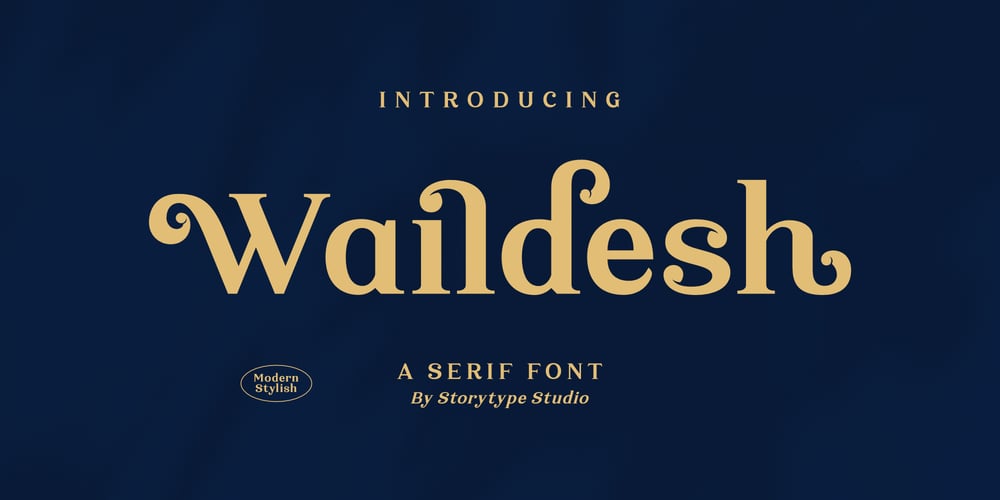
Waildesh Font Family was designed by Heru Utama Putra and published by Letterena Studios. Waildesh contains 2 styles and family package options. Waildesh is a serif modern and classic typeface that its own unique style & modern look.This typeface is perfect for an elegant & luxury logo, book or movie title design, fashion brand, magazine, clothes, lettering, quotes, and so much more.